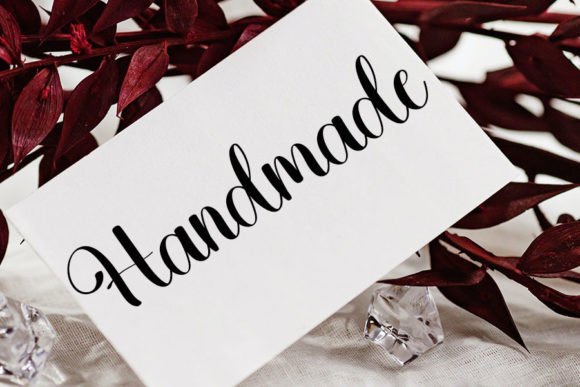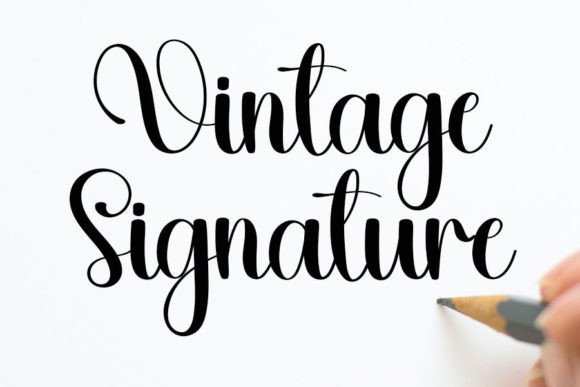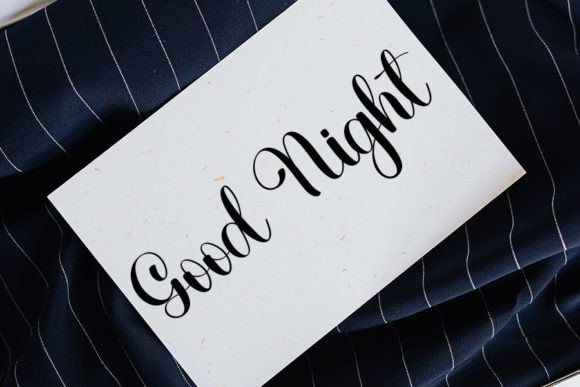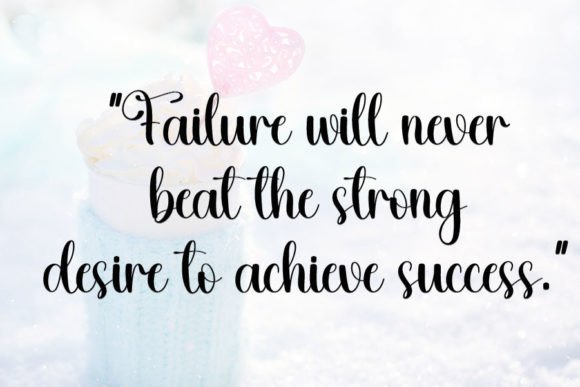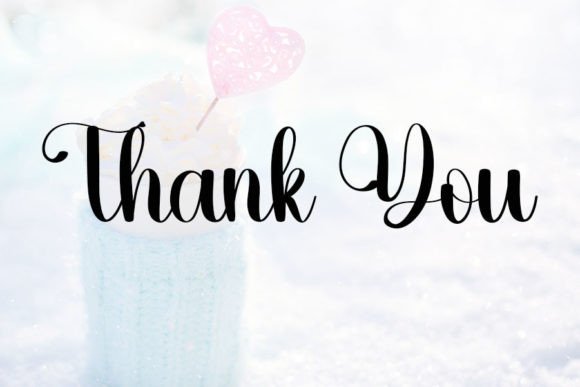
Introducing Chilly Font: The Ultimate Handwritten Companion for Designers and Crafters
Are you on the hunt for a font that can add a personal touch to your digital designs, crafts, presentations, and greeting cards? Look no further than Chilly Font! This fun and friendly handwritten font is quickly becoming a favorite among designers and crafters alike, and for good reason. In this article, we’ll dive into the world of Chilly Font and explore its many uses, features, and benefits.
Handwritten fonts have a way of adding a touch of warmth and personality to any design. They can evoke feelings of nostalgia, friendliness, and approachability, making them perfect for a wide range of applications. From digital designs and presentations to crafts and greeting cards, handwritten fonts like Chilly Font can help you connect with your audience on a more personal level.
What Makes Chilly Font Special?
So, what sets Chilly Font apart from other handwritten fonts on the market? For starters, its unique and playful style is sure to capture attention and add a touch of whimsy to any design. But beyond its aesthetic appeal, Chilly Font is also incredibly versatile and easy to use. Whether you’re a seasoned designer or a crafting novice, this font is perfect for a wide range of projects and skill levels.
Uses for Chilly Font
Chilly Font’s versatility is one of its greatest strengths. Here are just a few examples of how you can use this amazing font in your designs and crafts:
- Digital Designs: Add a personal touch to your social media graphics, blog posts, and website designs with Chilly Font.
- Crafts: Use Chilly Font to add a handmade touch to your scrapbooking, card making, and other paper crafts.
- Presentations: Make your presentations stand out with Chilly Font’s playful and engaging style.
- Greeting Cards: Create one-of-a-kind greeting cards for birthdays, holidays, and other special occasions with Chilly Font.
Benefits of Using Chilly Font
So, why should you choose Chilly Font for your next design or craft project? Here are just a few benefits of using this amazing font:
- Easy to Read: Chilly Font is clear and easy to read, making it perfect for digital designs and crafts.
- Highly Versatile: Use Chilly Font for a wide range of projects and applications.
- Unique Style: Add a touch of personality and whimsy to your designs and crafts with Chilly Font’s unique style.
- Fun and Friendly: Chilly Font’s playful style is sure to bring a smile to your audience’s face.
Tips for Using Chilly Font
Here are a few tips for getting the most out of Chilly Font:
- Experiment with Colors: Try pairing Chilly Font with a range of colors to add depth and interest to your designs.
- Mix and Match: Combine Chilly Font with other fonts and graphics to create unique and eye-catching designs.
- Keep it Simple: Don’t be afraid to keep things simple and let Chilly Font be the star of the show.
| Font Name | Chilly Font |
| Author | Ganden Letter |
In conclusion, Chilly Font is a fun and friendly handwritten font that’s perfect for designers and crafters of all skill levels. Its unique style, versatility, and ease of use make it an excellent choice for a wide range of projects and applications. Whether you’re looking to add a personal touch to your digital designs, crafts, presentations, or greeting cards, Chilly Font is sure to become your go-to font. So why wait? Give Chilly Font a try today and see the difference it can make in your designs and crafts!